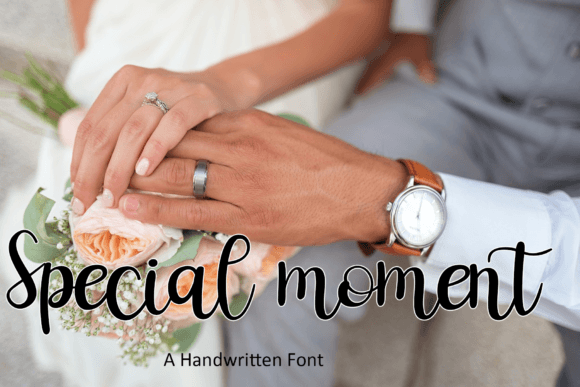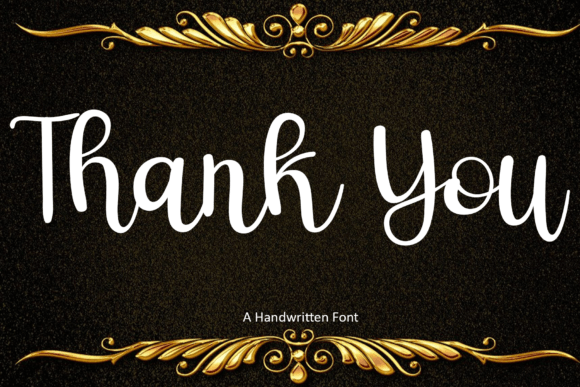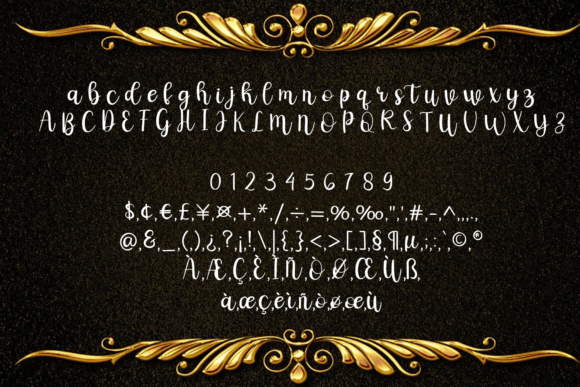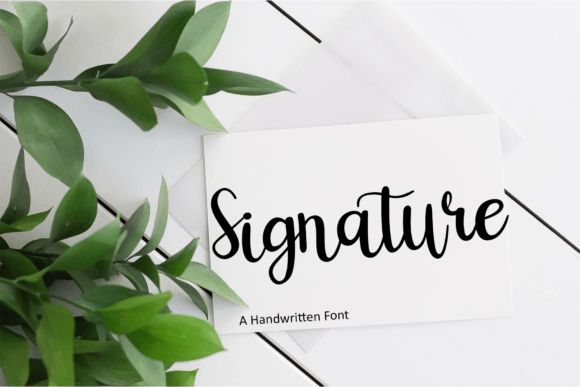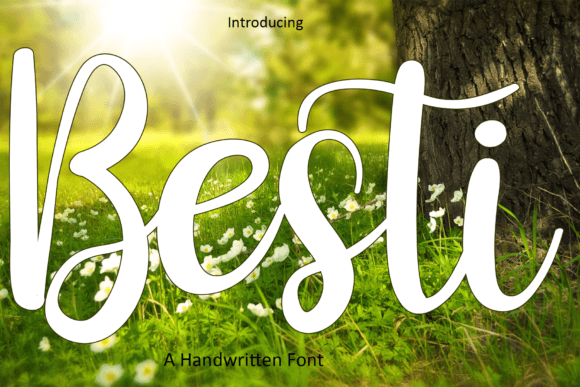
Discover the Magic of Besti Font
Have you ever been brainstorming a new design project and suddenly, a spark of creativity hits you? Maybe it’s the perfect color palette, a catchy phrase, or a quirky illustration that sets your imagination ablaze. For designers, these moments are what make the creative process so thrilling. And when you need a font that captures the essence of whimsy and playfulness, look no further than the charming Besti Font.
Designed to add a touch of magic to your projects, Besti Font is a delightful handwritten font that exudes charm and personality. Whether you’re crafting a children’s book, designing a birthday party invitation, or creating a social media campaign, this font is sure to bring a smile to your audience’s faces. As a valuable addition to your design toolkit, Besti Font is a must-have for anyone looking to add a bit of whimsy and personality to their work.
Besti Font Key Features
- Unique Characteristics: The font features a distinctive, hand-drawn design with organic and whimsical elements, making it perfect for creative and artistic projects.
Designer Review: Besti Font
I recently had the chance to work with the Besti Font, and I must say it’s a unique and quirky addition to any design project. ✨ The font’s organic, handwritten feel is perfect for creating a sense of personality and charm in your work.
- ✨ Expressive, varied letterforms that add a touch of whimsy to your design
- ✨ Excellent for creating a sense of nostalgia and retro charm
- ✨ Works particularly well for titles, headings, and other display text
However, there are a few limitations to be aware of:
- ⚠️ Can be difficult to read in smaller sizes or at a distance
- ⚠️ May not be suitable for formal or professional designs
- ⚠️ Can be overwhelming if used extensively throughout a design
Overall, I think the Besti Font is a great choice for designers looking to add some personality and flair to their work. While it may have its limitations, it’s a unique and versatile font that can be used in a variety of creative ways.
Besti Font is ideal for use in fantasy and horror-themed designs, such as:
- Book covers and novel illustrations
- Posters and advertisements for horror movies or TV shows
- Video game and comic book art
- Any project that requires a spooky or mystical atmosphere
For the most effective use of Besti Font, experiment with different font sizes, colors, and combinations to achieve a unique and captivating design.